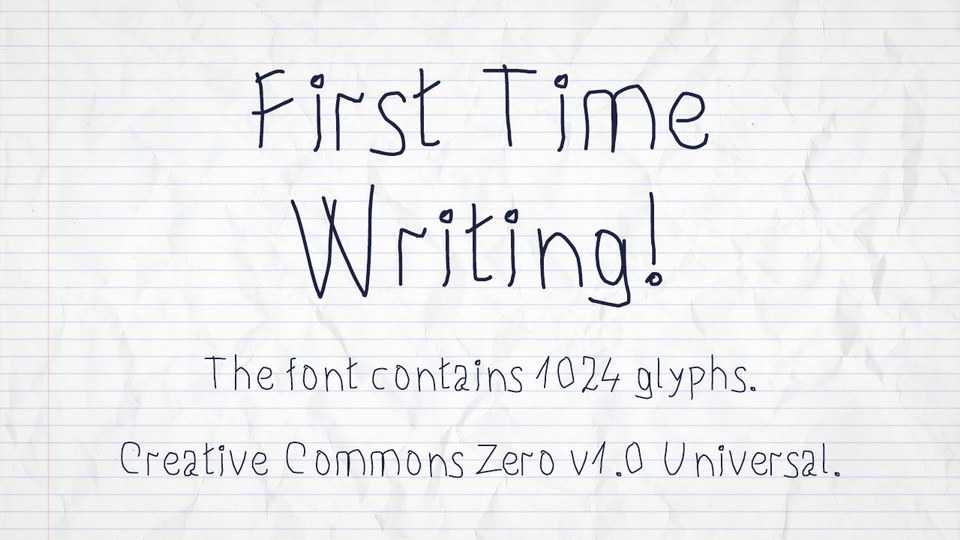
Download First Time Writing! font, the very first basic handwrite style teaching at primary school. The font contains 1 style and 1024 glyphs, including Latin, Cyrillic and Greek support.